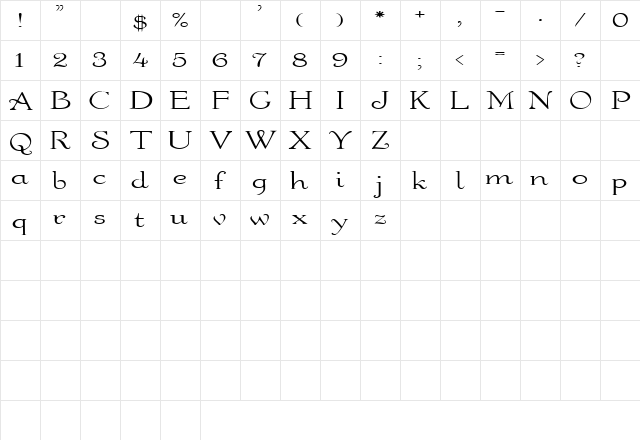
WaltersExtended Regular
Design Context for WaltersExtended Typeface
WaltersExtended takes a measured approach to typography — its balanced proportions and neutral character make it a reliable workhorse for both digital and print work.